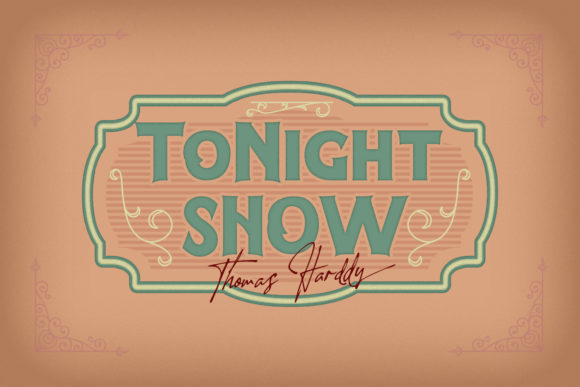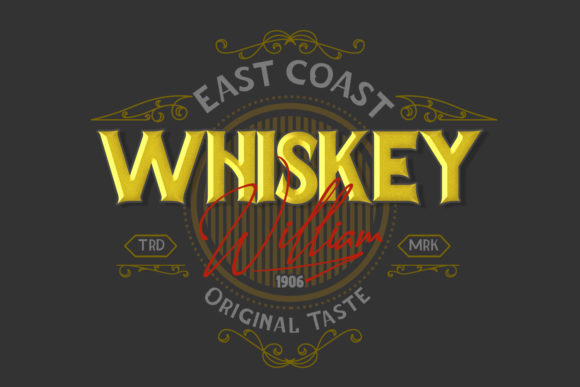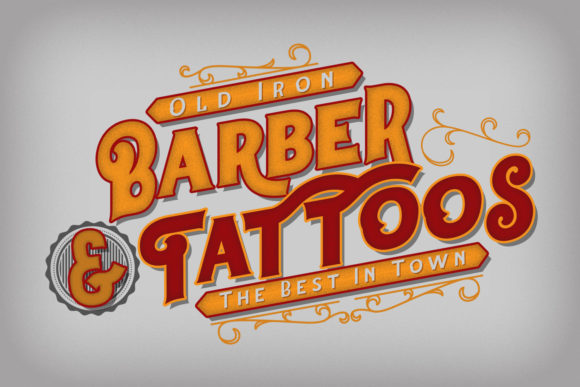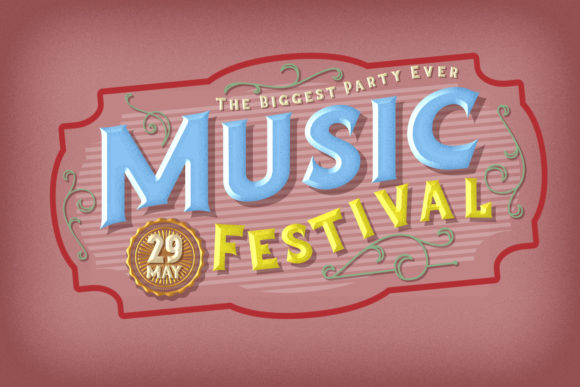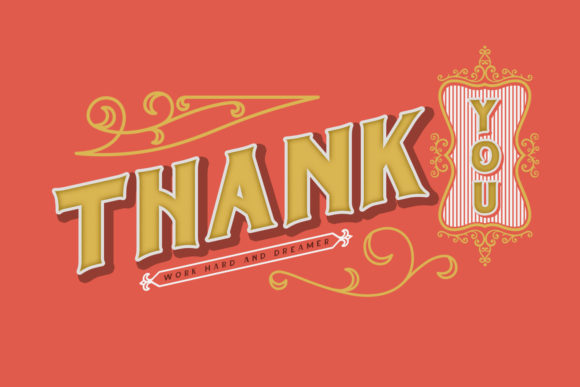
Introducing Chronicle Font: The Ultimate Vintage-Themed Display Font
Are you looking for a font that can add a touch of classic elegance and boldness to your design projects? Look no further than Chronicle Font! This stunning vintage-themed display font is designed to make a statement, and its confident and bold style is sure to turn any design project into an eye-catcher.
What is Chronicle Font?
Chronicle Font is a carefully crafted display font that draws inspiration from the classic typography of the past. Its unique blend of vintage flair and modern style makes it the perfect choice for designers and crafters looking to add a touch of sophistication and elegance to their work.
With its bold and confident style, Chronicle Font is ideal for use in a variety of design projects, from posters and flyers to logos and branding materials. Its versatility and flexibility make it a valuable addition to any designer’s toolkit.
Key Features of Chronicle Font
- Classic vintage theme: Chronicle Font boasts a classic vintage theme that is sure to evoke a sense of nostalgia and timelessness in your design projects.
- Bold and confident style: This font is designed to make a statement, with a bold and confident style that is sure to grab attention.
- Highly versatile: Chronicle Font can be used in a variety of design projects, from posters and flyers to logos and branding materials.
- Easily readable: Despite its bold style, Chronicle Font is easily readable, making it perfect for use in both print and digital designs.
Uses of Chronicle Font
Chronicle Font is a highly versatile font that can be used in a wide range of design projects. Here are some ideas to get you started:
- Posters and flyers: Use Chronicle Font to create eye-catching posters and flyers that are sure to grab attention.
- Logos and branding materials: Chronicle Font is perfect for use in logos and branding materials, where its bold and confident style can help to establish a strong brand identity.
- Signage and advertising: This font is ideal for use in signage and advertising, where its clear and easily readable style can help to communicate your message effectively.
- Packaging and product design: Chronicle Font can add a touch of elegance and sophistication to packaging and product design, making it perfect for use in luxury brands and high-end products.
Tips for Using Chronicle Font
Here are some tips for using Chronicle Font in your design projects:
- Use it sparingly: Chronicle Font is a bold and confident font, so use it sparingly to avoid overwhelming your design.
- Pair it with other fonts: Chronicle Font can be paired with other fonts to create a unique and interesting design.
- Experiment with different colors: Chronicle Font looks great in a variety of colors, so don’t be afraid to experiment and find the perfect color for your design.
In conclusion, Chronicle Font is a classic vintage-themed display font that is sure to add a touch of elegance and sophistication to your design projects. Its bold and confident style makes it perfect for use in a variety of design projects, from posters and flyers to logos and branding materials. With its highly versatile style and easily readable design, Chronicle Font is a valuable addition to any designer’s toolkit.